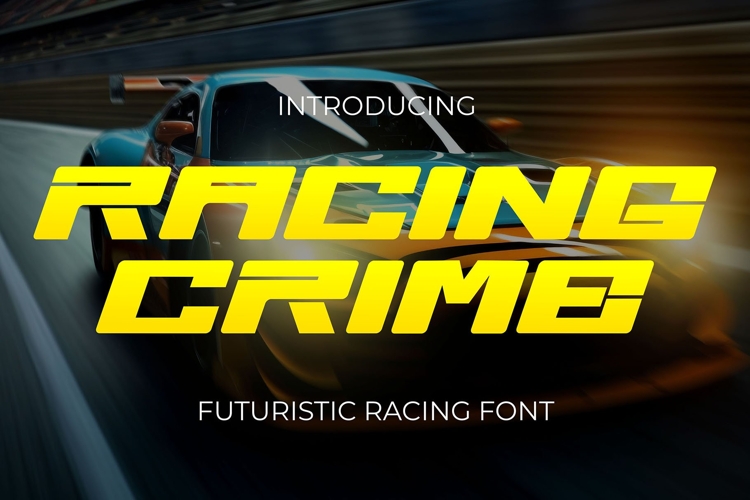
Racing Crime - Futuristic Racing Font
Introducing Racing Crime – the ultimate Futuristic Racing Font that brings speed and intensity to your designs. With its sleek and dynamic design, Racing Crime is perfect for projects that demand a bold, high-octane aesthetic.
🏎️ Speed and Intensity: Racing Crime captures the essence of futuristic racing with its sharp, angular lines and streamlined forms. Each character is meticulously crafted to convey a sense of motion and excitement, making it ideal for designs that need a fast-paced, edgy touch.
💨 Sleek and Dynamic: This font combines modern, futuristic elements with a racing-inspired aesthetic, creating a visually striking effect. Perfect for posters, logos, branding, and more, Racing Crime ensures your message is delivered with speed and style.
💥 High-Octane Impact: Racing Crime is designed to dominate. Its bold and dynamic letterforms ensure your text captures attention and leaves a lasting impression. Use it for headlines, titles, and other prominent elements to create eye-catching visuals that convey a sense of urgency and power.
🖋️ Versatile Application: Whether you're designing for print or digital media, Racing Crime adapts seamlessly to various applications. Its distinctive style is perfect for a wide range of creative projects, from automotive branding and event posters to cutting-edge tech designs and sleek advertising campaigns.
🎨 Unique Edge: The futuristic look of Racing Crime adds a unique edge to your designs, making them stand out from the competition. Each letter exudes a sense of innovation and high-tech sophistication, perfect for projects that require a bold and modern touch.
Elevate your designs with Racing Crime – the Futuristic Racing Font that combines speed and style. Perfect for making a high-octane visual impact, Racing Crime is your go-to font for adding a powerful and energetic touch to any project.